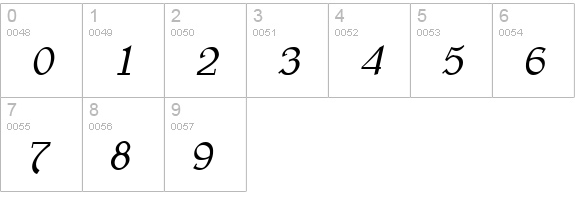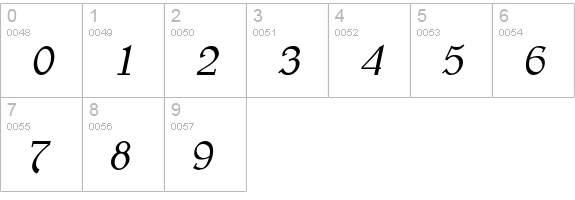
BearButteT Italic Font Details
BearButteT Italic is a distinctive, italic variant in the BearButteT typeface family \xE2\x80\x94 well suited to design and typography projects.
BearButteT Italic font is a stylish and modern typeface that exudes elegance and sophistication. Its slanted design adds a touch of dynamism to any text, making it perfect for titles, headings, and creative projects. The sleek curves and sharp edges of this font give it a unique and eye-catching appearance that is sure to grab attention. What makes BearButteT Italic font even more appealing is that it is completely free to download at FontsMarket.com. Whether you're a designer looking to add a touch of flair to your work or an individual seeking a font that stands out from the rest, BearButteT Italic is the perfect choice. Download it today and see how it can elevate your design projects to the next level.